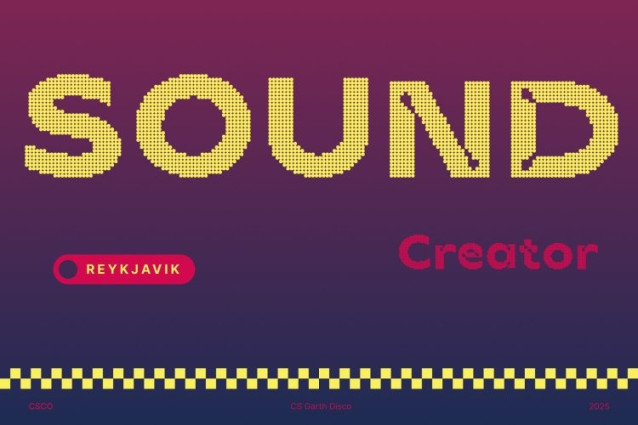
CS Garth Disco Font
CS Garth Disco Font – This is a geometric sans serif display font that combines clean, precise shapes with a professional, modern aesthetic. Its well-defined letterforms create a sense of order and sophistication, making it perfect for projects that demand clarity and contemporary style.
Inktrap Details for Distinctive Character
The inktrap accents add subtle depth and personality, giving each letter a crafted, distinctive appearance. These carefully designed features enhance the font’s visual appeal and provide a unique edge to any composition, bridging technical precision with artistic flair.
Disco Style for Glamour and Energy
The disco inspired elements introduce sparkle and playful energy, transforming structured geometry into something vibrant and eye catching. This combination of structure and shine makes this font ideal for branding, posters, and editorial design that needs both professionalism and personality.
Versatile for Modern Creative Applications
Whether used in corporate identities, digital campaigns, or creative print layouts, this font balances precision, style, and individuality. Its unique mix of geometric strength and glamorous accents ensures your designs stand out with clarity, charm, and contemporary flair.